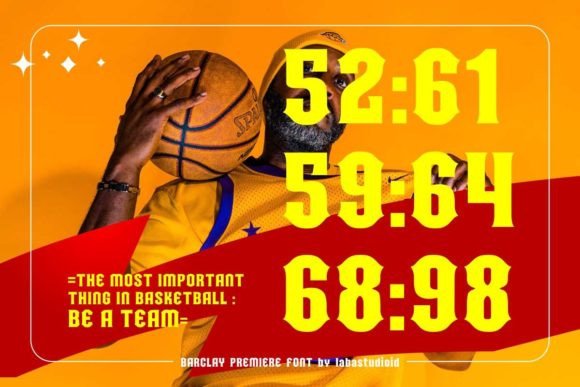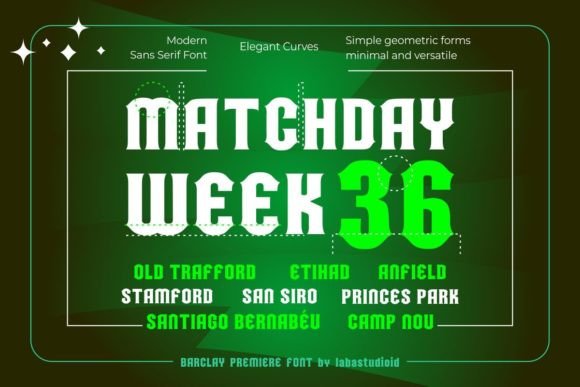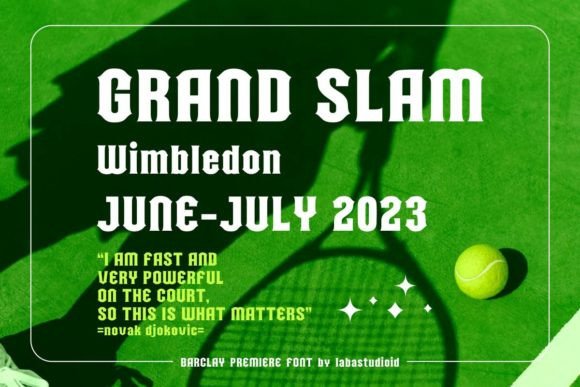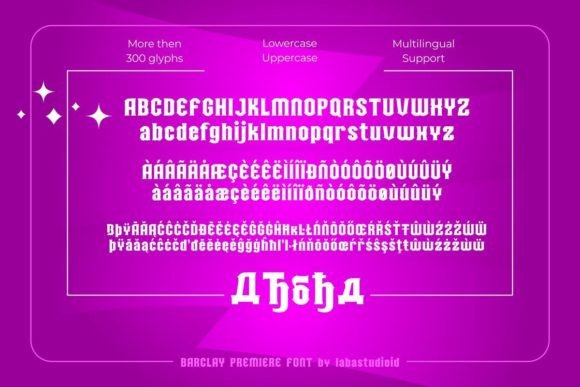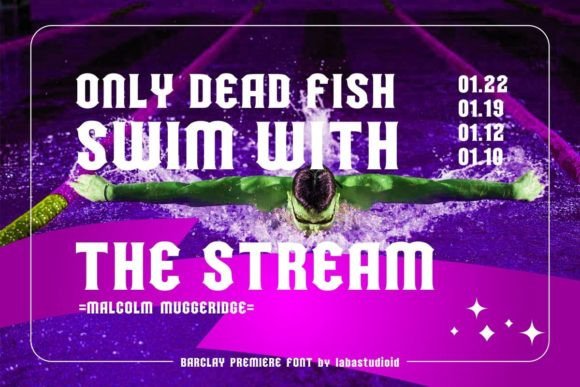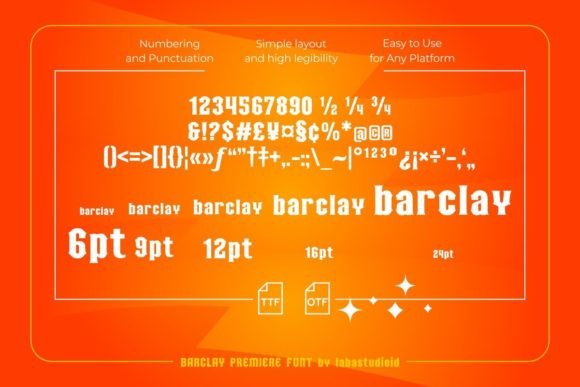
Unleash Your Inner Design Champion with the Perfect Font
Do you ever find yourself staring at a blank canvas, eager to unleash your creativity but struggling to find the right tool to bring your vision to life? That’s exactly what happened to me when I was working on a sports-themed project recently. I needed a font that would capture the excitement and energy of the game, but every option I tried just didn’t quite hit the mark.
That’s when I stumbled upon the Barclay Premiere Font, a game-changing typeface that’s specifically designed for sports-related materials. With its bold design, simple and elegant curves, perfect spacing, and excellent legibility, this font is a designer’s dream come true.
As a designer, you know how valuable it is to have a font that can elevate your work and make it stand out from the crowd. The Barclay Premiere Font is a valuable addition to any designer’s toolkit, offering more than 300 glyphs, including lowercase and uppercase letters, numbers, punctuation, and multilingual support. With two formats to choose from – TTF and OTF – you can take your designs to the next level with this incredible font.
Barclay Premiere Font Key Features
- Unique Characteristics: Elegant and sophisticated design, ideal for high-end branding and corporate materials
- Font Style: Comes in Regular, Italic, Bold, and Bold Italic styles
Review of Barclay Premiere Font
I’ve had the chance to work with Barclay Premiere Font, and here’s my honest take on it.
- ✨ Elegant and sophisticated feel: The Barclay Premiere Font has a unique blend of classic and modern elements, making it perfect for high-end branding and luxury designs.
- ✨ Versatility: This font works well in a variety of settings, from corporate materials to fine art pieces.
- ✨ Beautiful typography: The letterforms are well-designed, making them easy to read and visually appealing.
- ⚠️ Limited language support: I found that Barclay Premiere Font has limited language support, which may be a concern for projects requiring multiple language sets.
- ⚠️ No bold weights: While the font has a range of styles, there are no bold weights available, which may limit its use in certain contexts.
- ⚠️ Some characters may not display correctly: I encountered some issues with character display, particularly with certain punctuation marks.
Overall, Barclay Premiere Font is a beautiful and versatile font that excels in high-end designs. However, its limitations may make it less suitable for projects with complex language requirements or those needing bold weights.
Tips for Getting the Most Out of Barclay Premiere Font
Use Barclay Premiere Font for elegant and sophisticated designs.
Pair the font with other elegant fonts to create a cohesive look.
Barclay Premiere Font is commonly used for:
Corporate branding and marketing materials
High-end event invitations and announcements